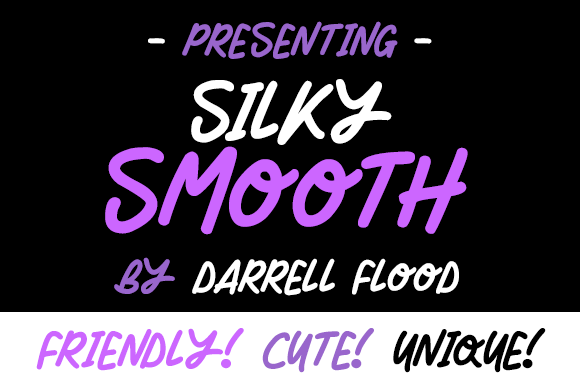
Silky Smooth Font
About Silky Smooth Font
Silky Smooth is a flowy, freehand font in a casual felt tip style. It comes in two variations and is perfect for product labels and love related themes!